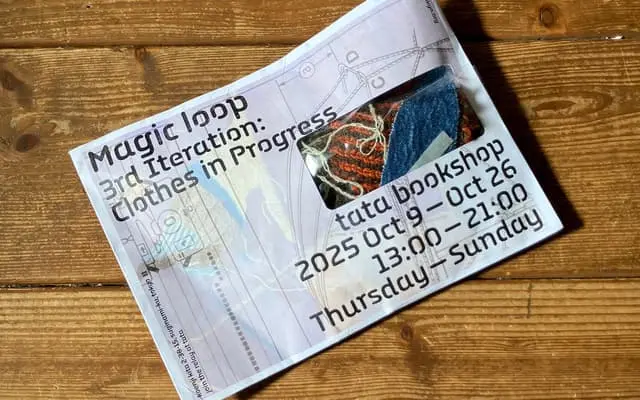
Plotter Stencil
A stencil typeface forming part of a wider Plotter type system that includes mono, display and layered variants.
Part of Typotheque's Plotter system, the Stencil cut carries interrupted stroke forms across four weights from Light to Bold. The broader family extends into Plotter, Plotter Mono, Plotter Mono Stencil and a layered Display subfamily with named city-themed styles such as Amsterdam, Bengaluru, Copenhagen and Damascus. The Display variant offers separate layer files for chromatic or dimensional type treatments.
A stencil variant within a broader type system, designed for display and layering purposes, with interrupted strokes and cut-out letterforms characteristic of stencil typefaces.